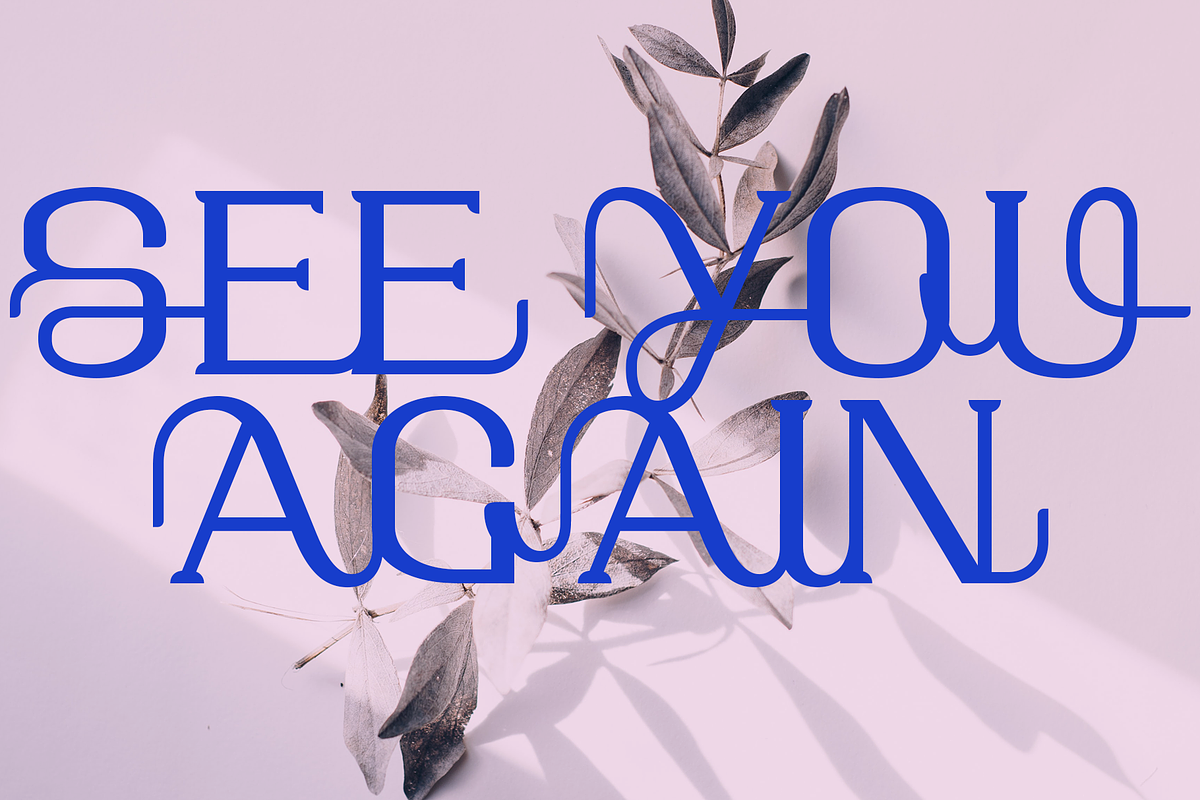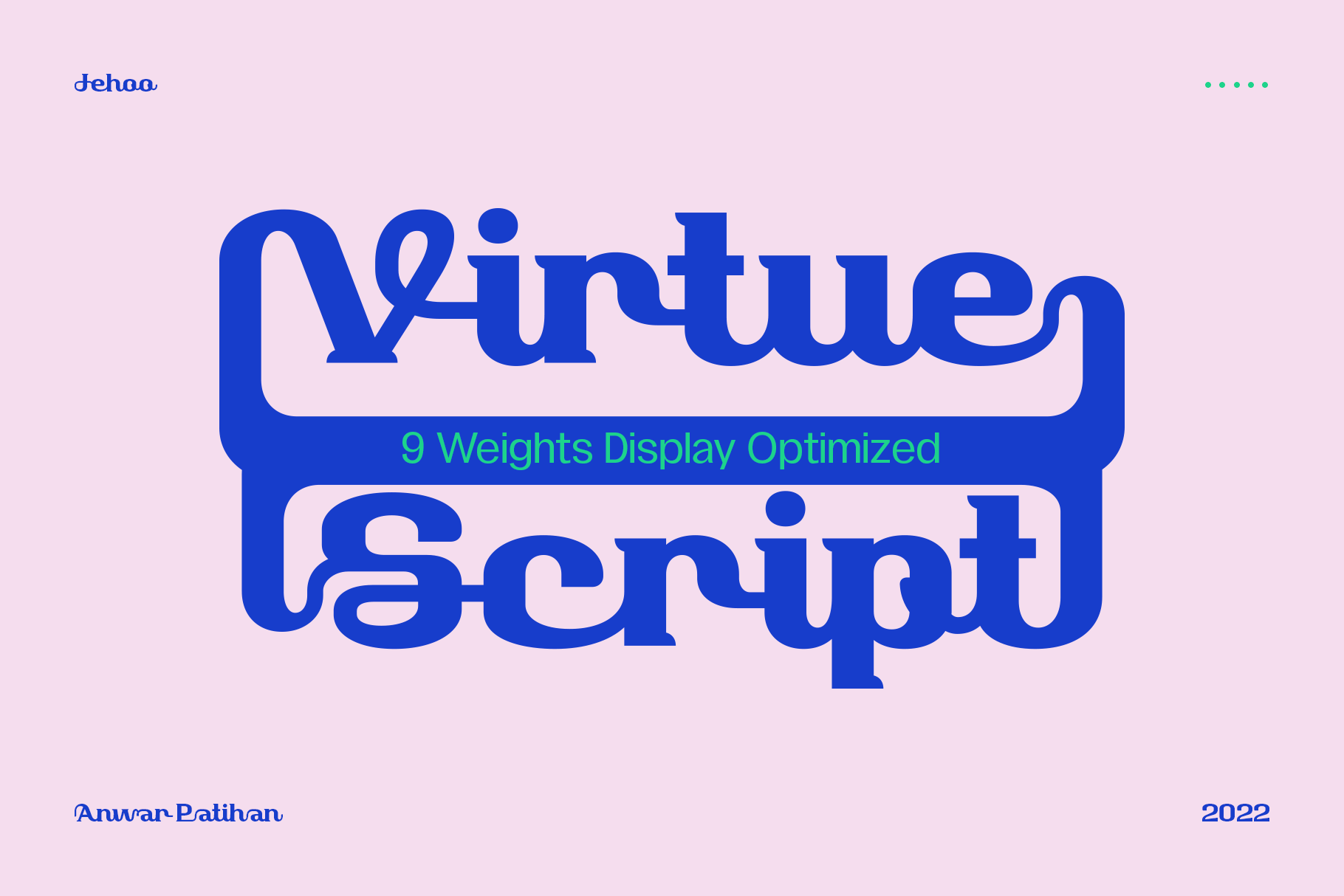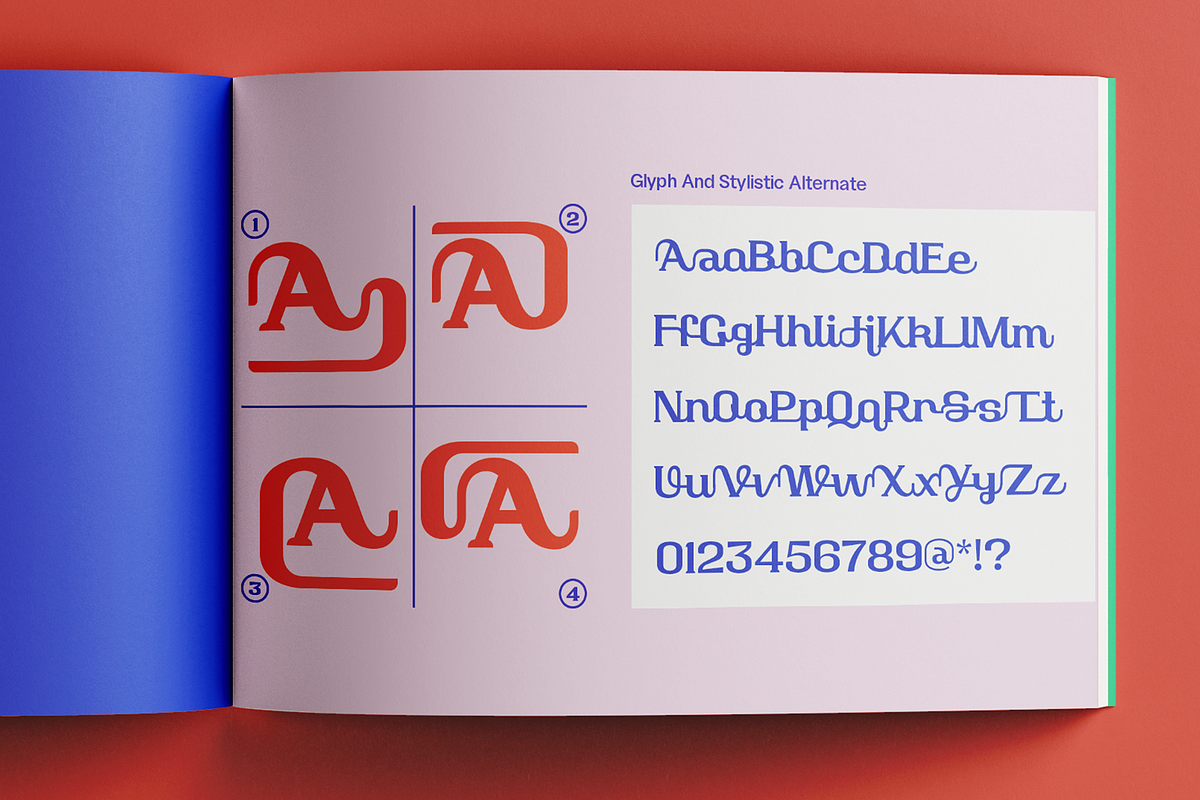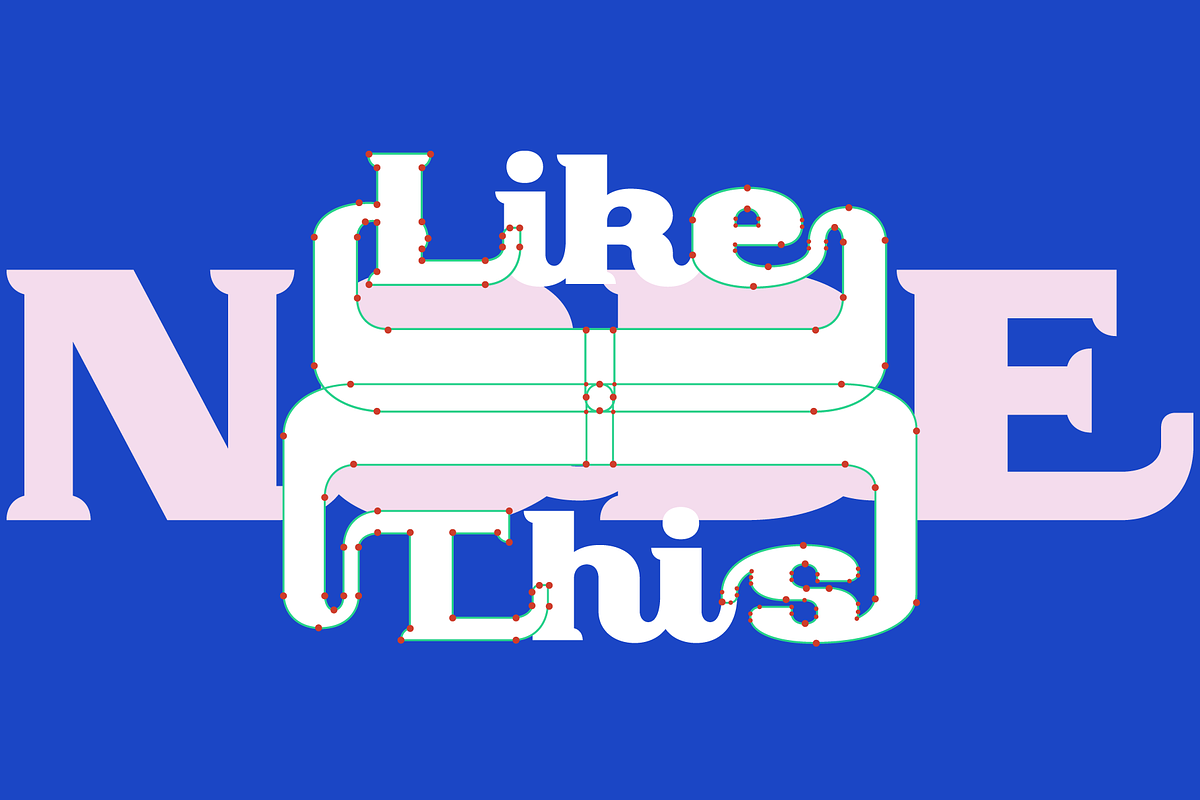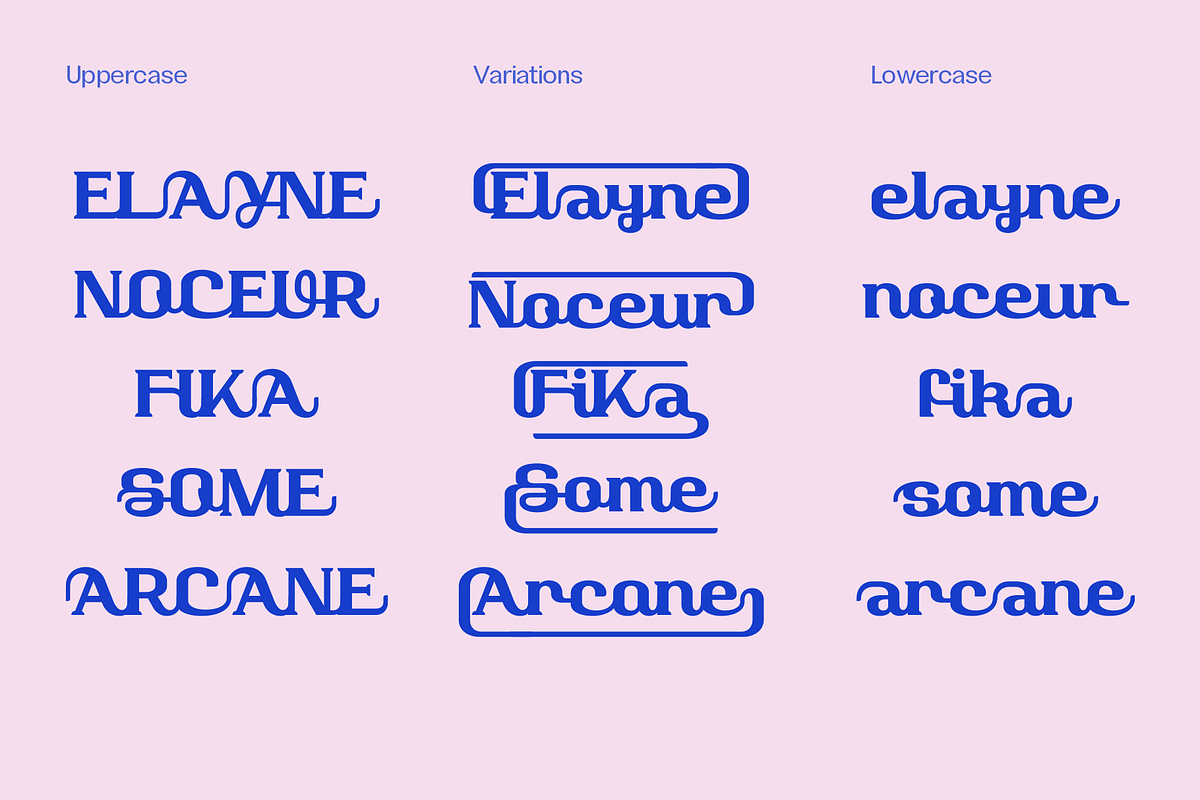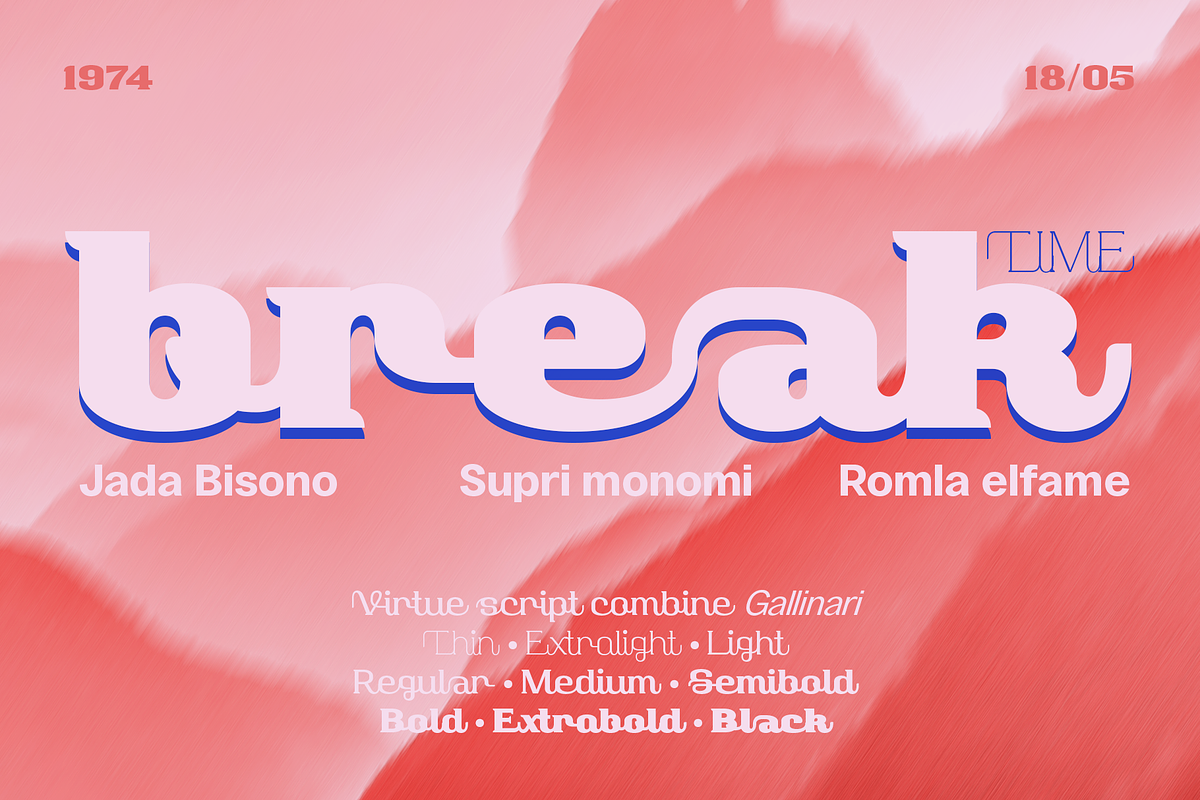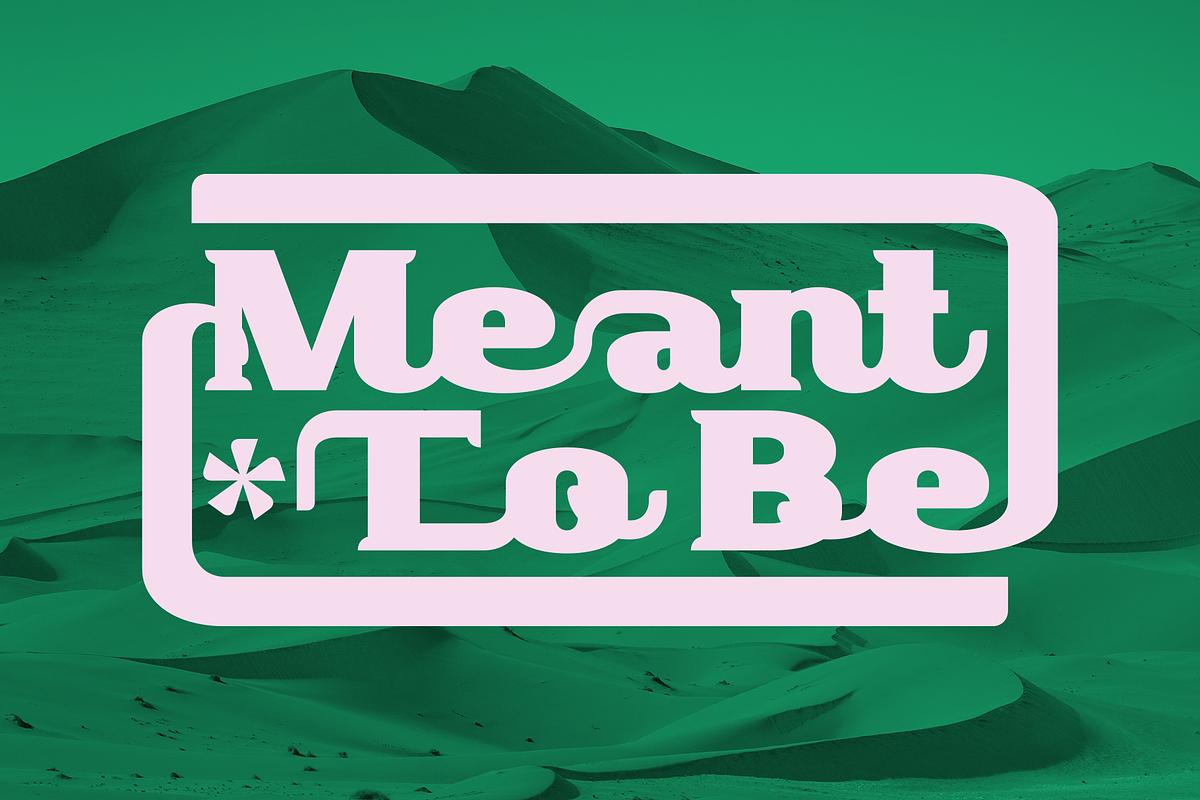
Virtue Script - Display Typefamily
Virtue Script is a font that is meant to make your designs attractive and striking, having a serif foundation makes this script font different from the usual scripts. all the letters can connect nicely and also the fonts are designed with simple nodes so that they can be easily stretched and changed as you wish. Virtue Script has 9 weights from Thin to Black and each letter has 4 beautiful stylistic Alternates, combining this Font with other font types will really give your design a distinctive look.